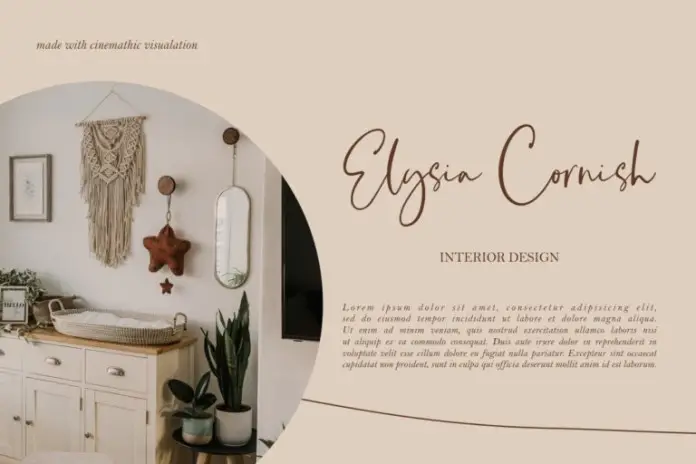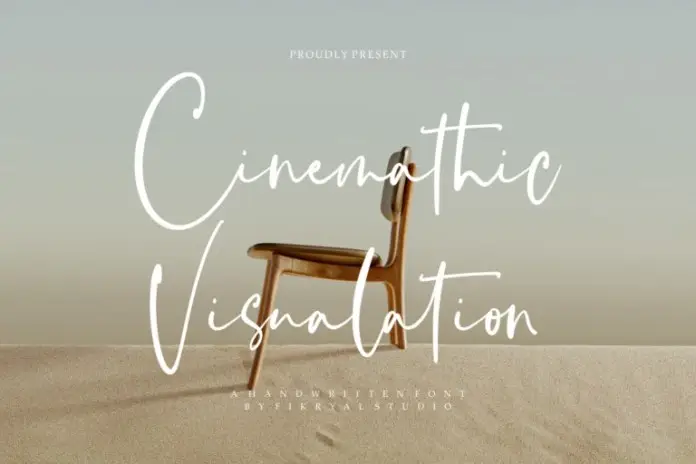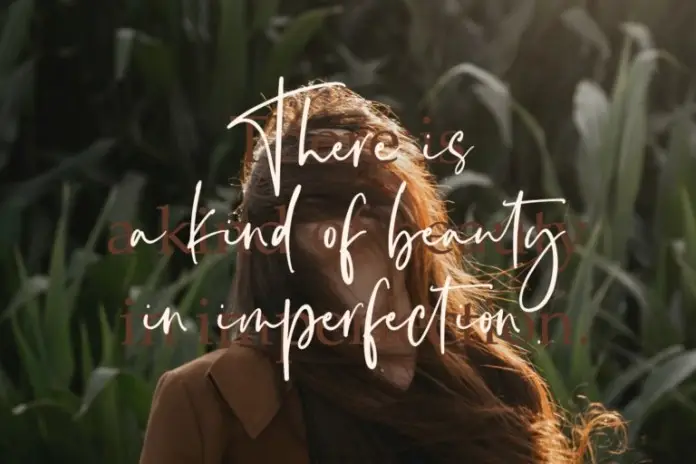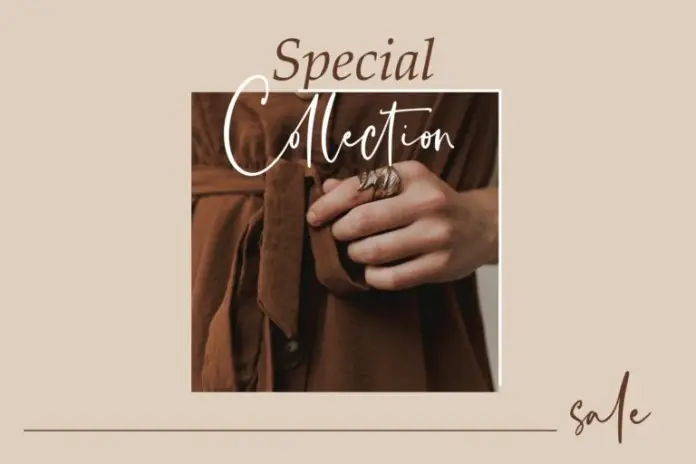
Cinemathic Visualation Script Font
The Cinemathic Visualation Script Font is a beautifully crafted typeface designed to bring an artistic touch to your projects. With its elegant curves and flowing lines, this font is perfect for a variety of applications, including branding, logos, and print materials.
• Stylish script design with a modern flair
• Style: Script
Ideal for creating stunning visual content, the Cinemathic Visualation Script Font works well in both digital and print formats. Use it for invitations, posters, and social media graphics to add a unique touch to your designs.